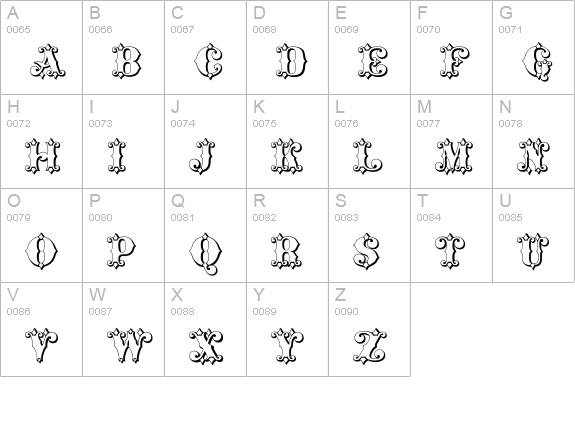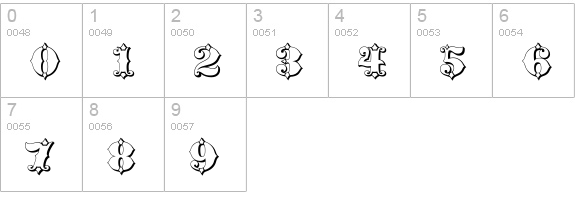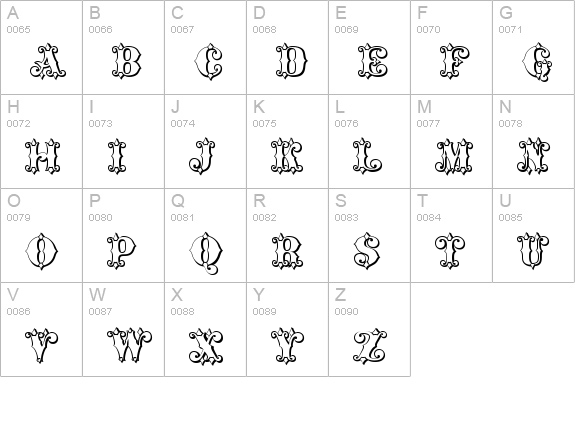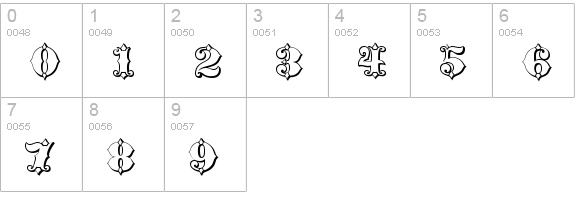
Maverick's Luck QJs Font Details
Maverick's Luck QJs font is a bold and unique typeface that exudes a sense of adventure and individuality. With its striking design and classic yet modern appeal, this font is perfect for adding a touch of personality to any project. The combination of sharp lines and delicate curves creates a captivating visual impact, making Maverick's Luck QJs font stand out from the crowd. What sets this font apart is its versatility - whether you're designing a poster, logo, or website, Maverick's Luck QJs font will elevate your project to the next level. Its sleek and sophisticated look is sure to impress and leave a lasting impression on your audience. The best part? Maverick's Luck QJs font is completely free to download at FontsMarket.com. Now you can access this stunning typeface without breaking the bank, making it the perfect choice for designers on a budget. Don't miss out on this opportunity to enhance your creative projects with Maverick's Luck QJs font today!